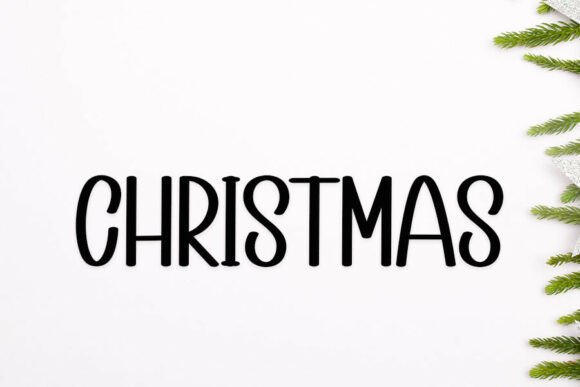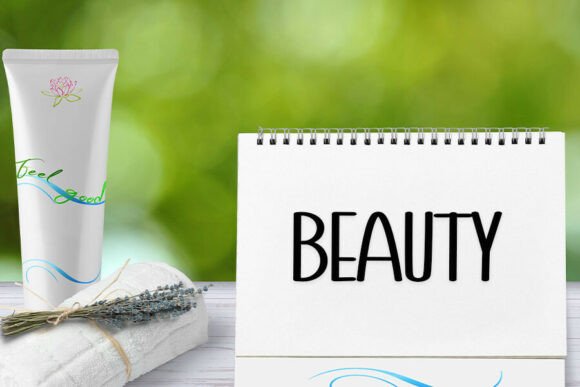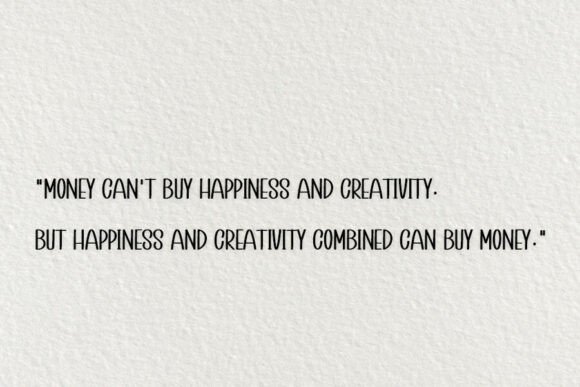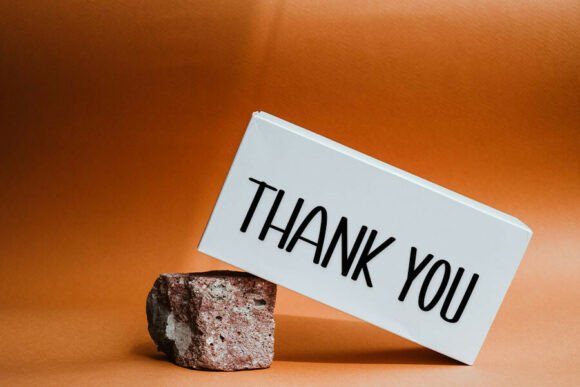
Discover the Perfect Touch of Whimsy: Hoodie Font
Who hasn’t found themselves scribbling down a design idea in the dead of night, only to realize that the right font could make all the difference? I know I have. It’s those fleeting moments of inspiration that remind us why we love design in the first place – the thrill of bringing a concept to life, of watching it take shape and transform into something truly unique.
That’s where Hoodie Font comes in – a delicate, handwritten font carefully crafted to add a touch of cool to any design. From invitations and letters to food products and titles, Hoodie Font is the perfect choice for anyone looking to add a little whimsy to their work. And for designers, it’s a valuable addition to any toolkit, offering endless possibilities for creative expression.
Hoodie Font Key Features
- Font Family: Hoodie is a sans-serif font family.
- Unique Characteristics: Hoodie Font features a distinctive rounded edge and geometric shape, making it suitable for modern and trendy designs.
Honest Designer Review: Hoodie Font
At first glance, Hoodie Font ✨ seems to be a great choice for any casual or sporty design project. The font’s rounded edges and relaxed feel make it perfect for creating a laid-back vibe. It’s also highly legible, making it suitable for both on-screen and print use.
- The font’s versatility ✨ allows it to be used in a wide range of applications, from fashion brands to outdoor gear.
- Hoodie Font ✨ supports a variety of languages, including English, Spanish, French, and many more.
However, there are some limitations ⚠️ that you should be aware of:
- The font may not be the best choice for formal or professional projects, as it can come across as too casual.
- The font’s rounded edges can sometimes make it difficult to read at very small font sizes.
Overall, Hoodie Font is a solid choice for designers looking to create a relaxed and approachable atmosphere. While it may have some limitations, its versatility and legibility make it a great addition to any design project.
Tips for Getting the Most Out of Hoodie Font
Use Hoodie Font to add a unique touch to your designs, especially for titles, headings, and emphasis.
Pair Hoodie Font with other fonts to create a visually appealing combination.
Experiment with different font sizes and colors to enhance the readability and visual impact of your design.
Hoodie Font is perfect for:
Graphic designs, such as posters, flyers, and brochures.
Branding materials, such as logos, business cards, and letterheads.
Web design elements, such as headings, titles, and emphasis.
Alternatives to Hoodie Font
Hoodie Font is a sans-serif font known for its clean lines and modern aesthetic. However, designers may be looking for alternatives that offer similar characteristics with unique twists. Here are a few options:
Inter Font is a geometric sans-serif font designed by Rasmus Andersson. It is known for its versatility and high legibility, making it suitable for a wide range of design applications. Compared to Hoodie Font, Inter Font has a more geometric feel and is often used for digital products and editorial content.
Avenir Next
Avenir Next is a sans-serif font designed by Adrian Frutiger. It is a modern and elegant font that is often used in luxury and high-end branding. Compared to Hoodie Font, Avenir Next has a more refined and sophisticated feel, making it suitable for premium and high-end design applications.
Montserrat is a sans-serif font designed by Julieta Ulanovsky. It is a geometric font that is inspired by the urban landscape of Montserrat, Argentina. Compared to Hoodie Font, Montserrat has a more urban and edgy feel, making it suitable for streetwear and urban design applications.